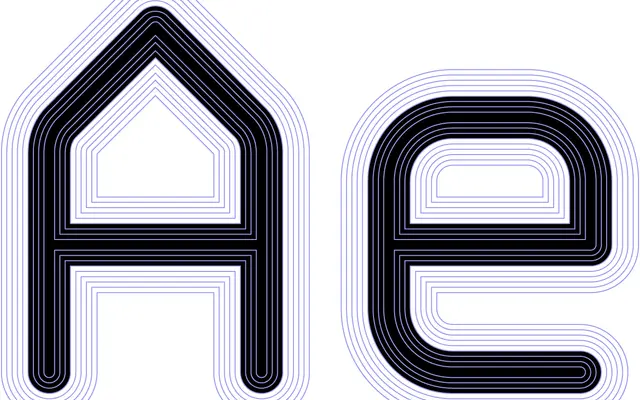
Nine Mono
A strictly geometric monospaced typeface built on a 36-unit grid, available in nine weights defined by incremental stroke additions along a fixed central axis.
Part of MuirMcNeil's Nine type system, Nine Mono shares its geometric constraints with the varispaced Nine Metric, both derived from the same grid used in the ThreeSix system. Strokes are constructed from vertical, horizontal and 45-degree oblique segments capped with circular arcs, with each of the nine weights adding 18 units of stroke in equal increments. The fixed-width design remains workable across both extended text settings and display use.
A strictly geometric monospaced typeface constructed on a 36-unit grid with vertical, horizontal and 45-degree oblique segments, placing it firmly in the geometric mono category.